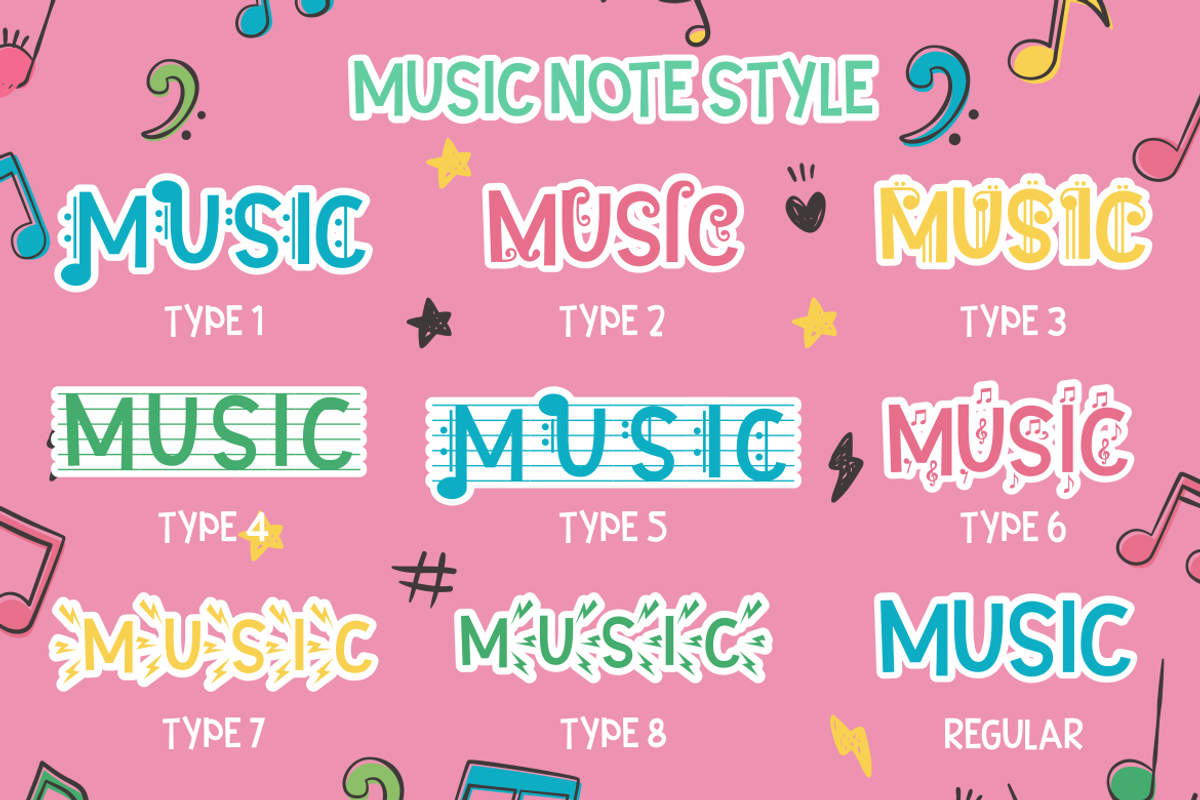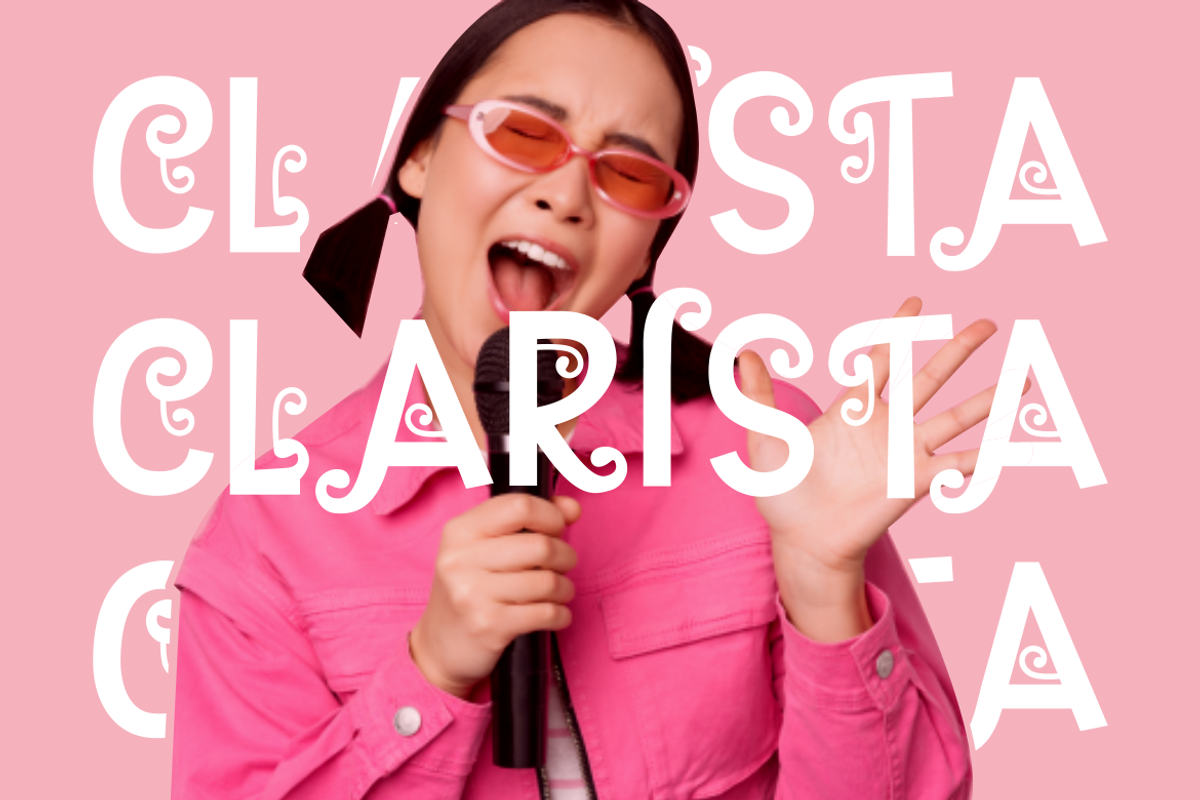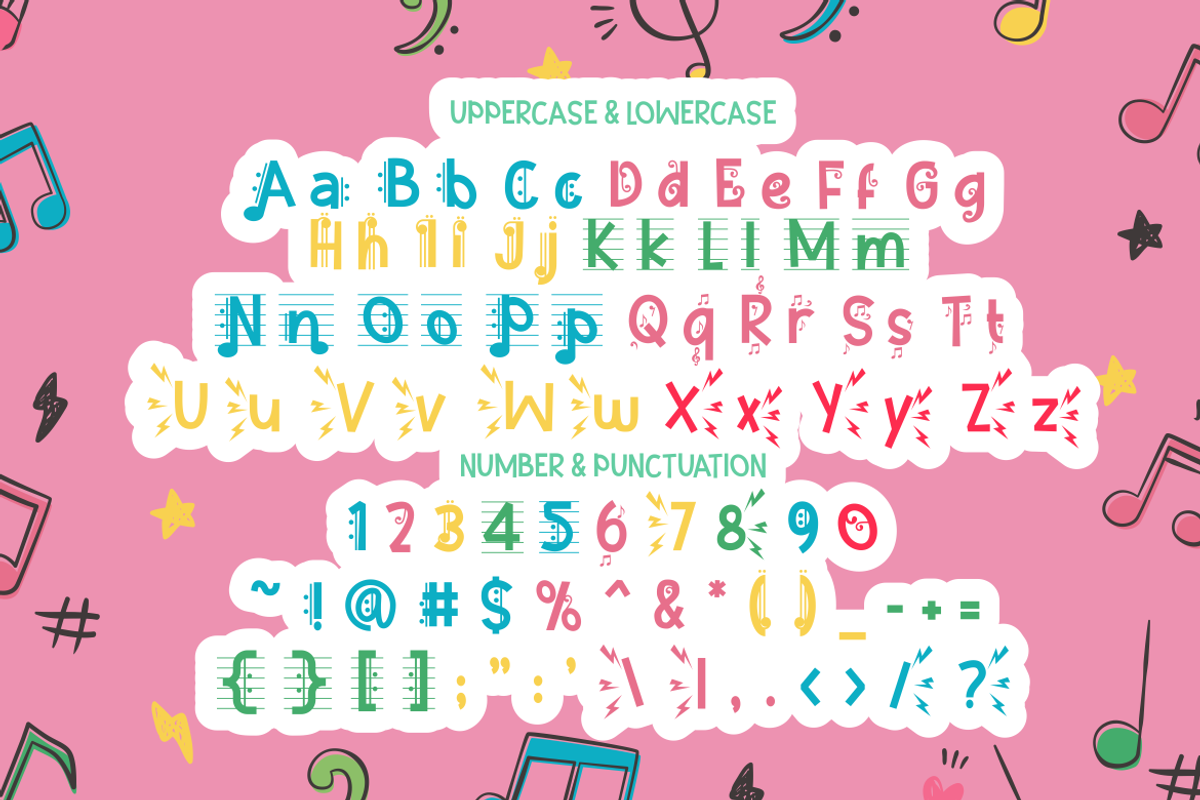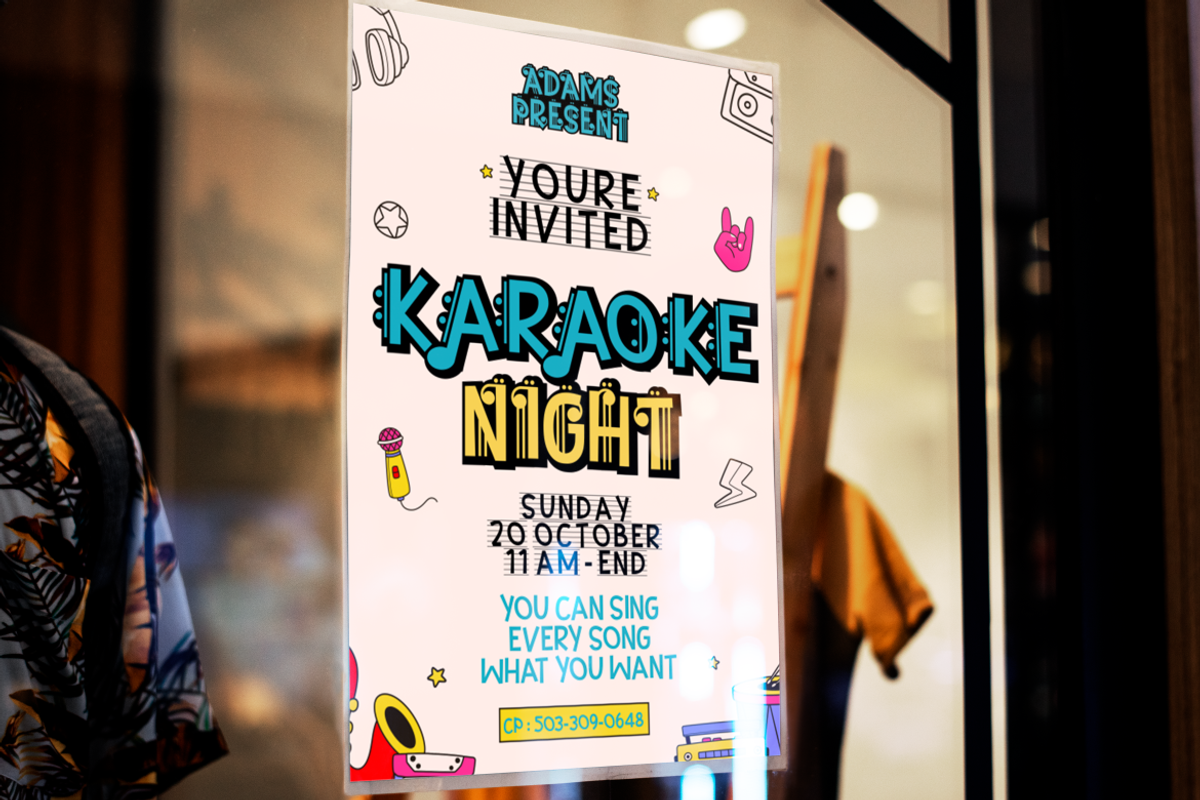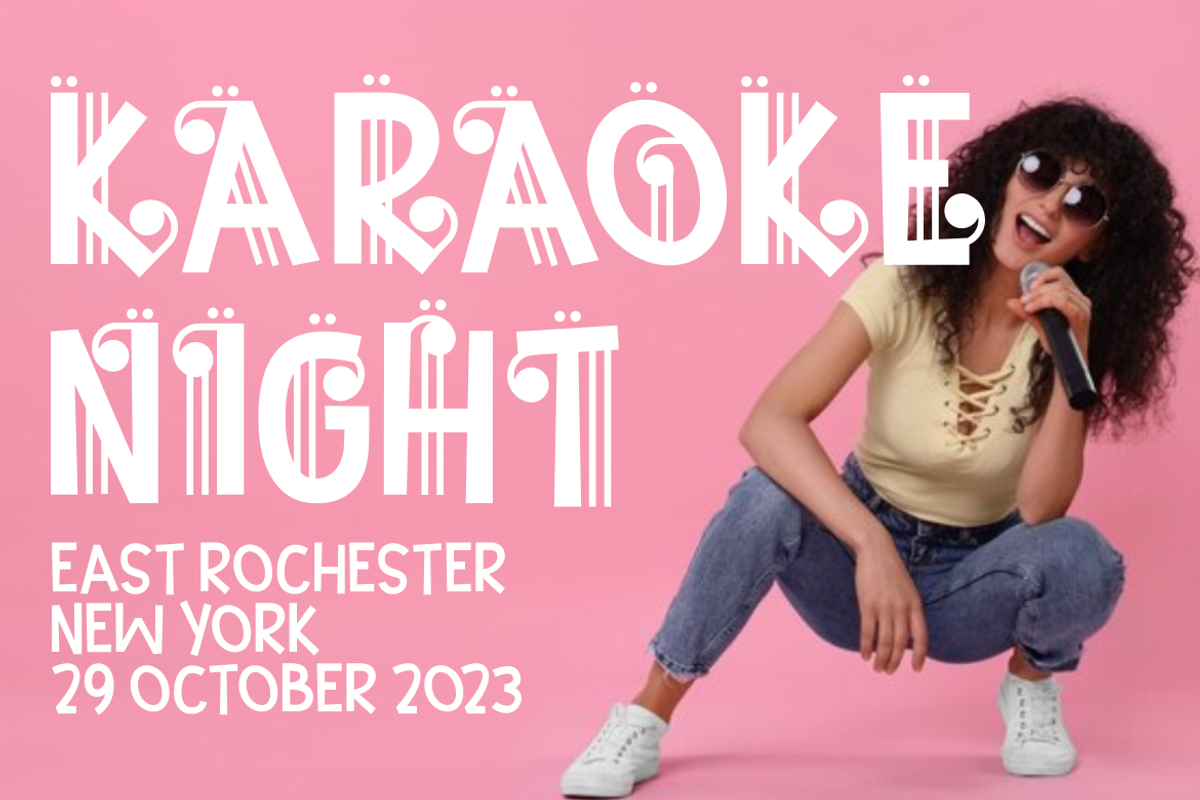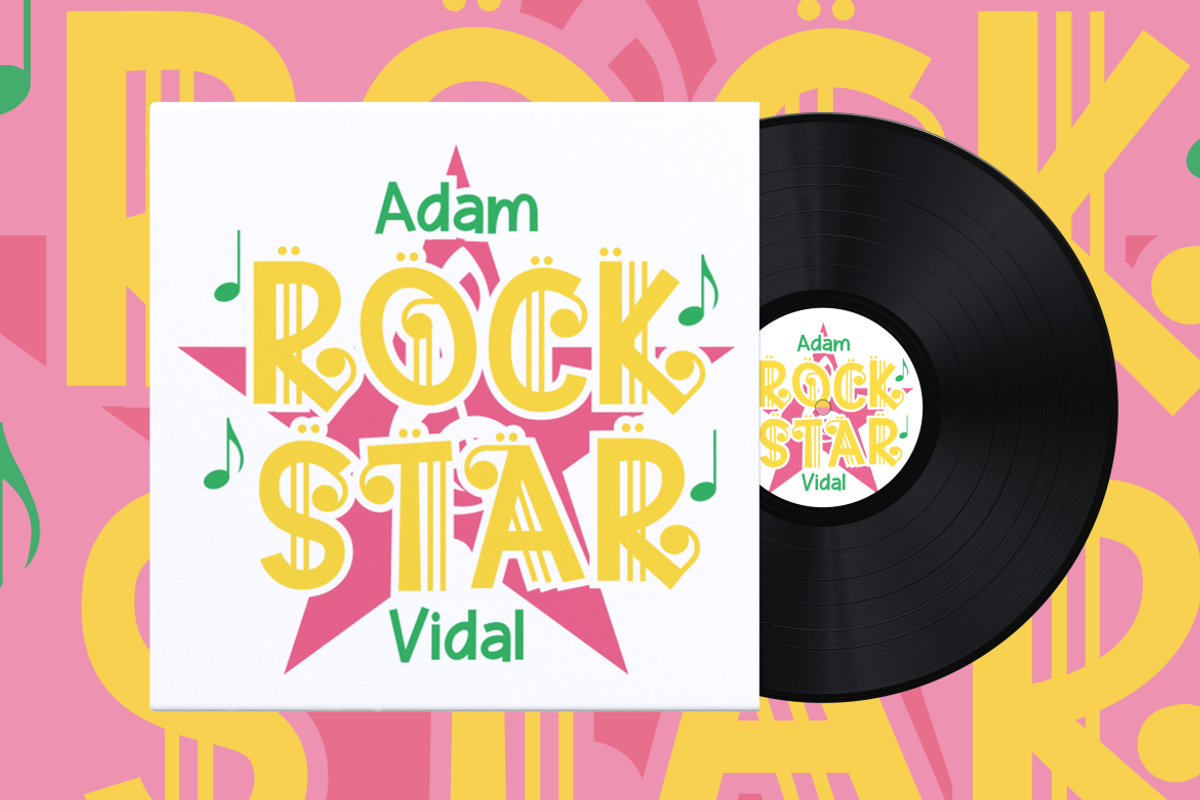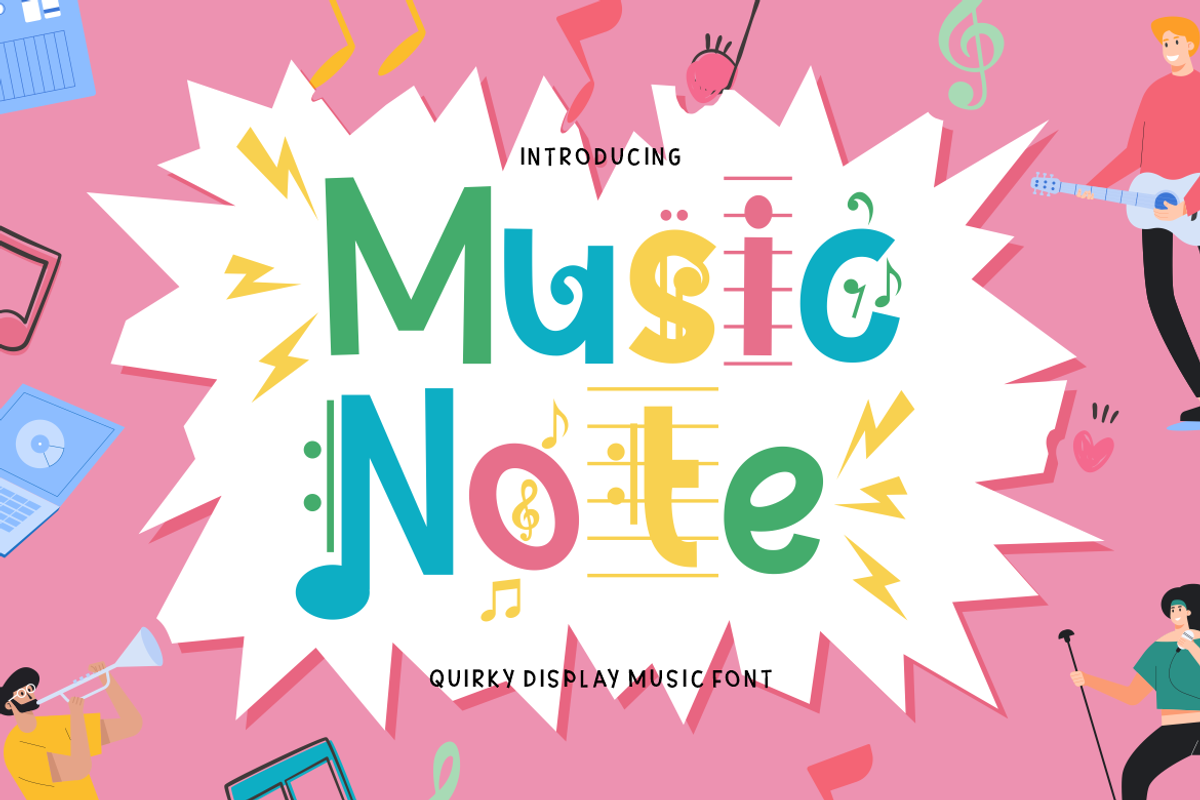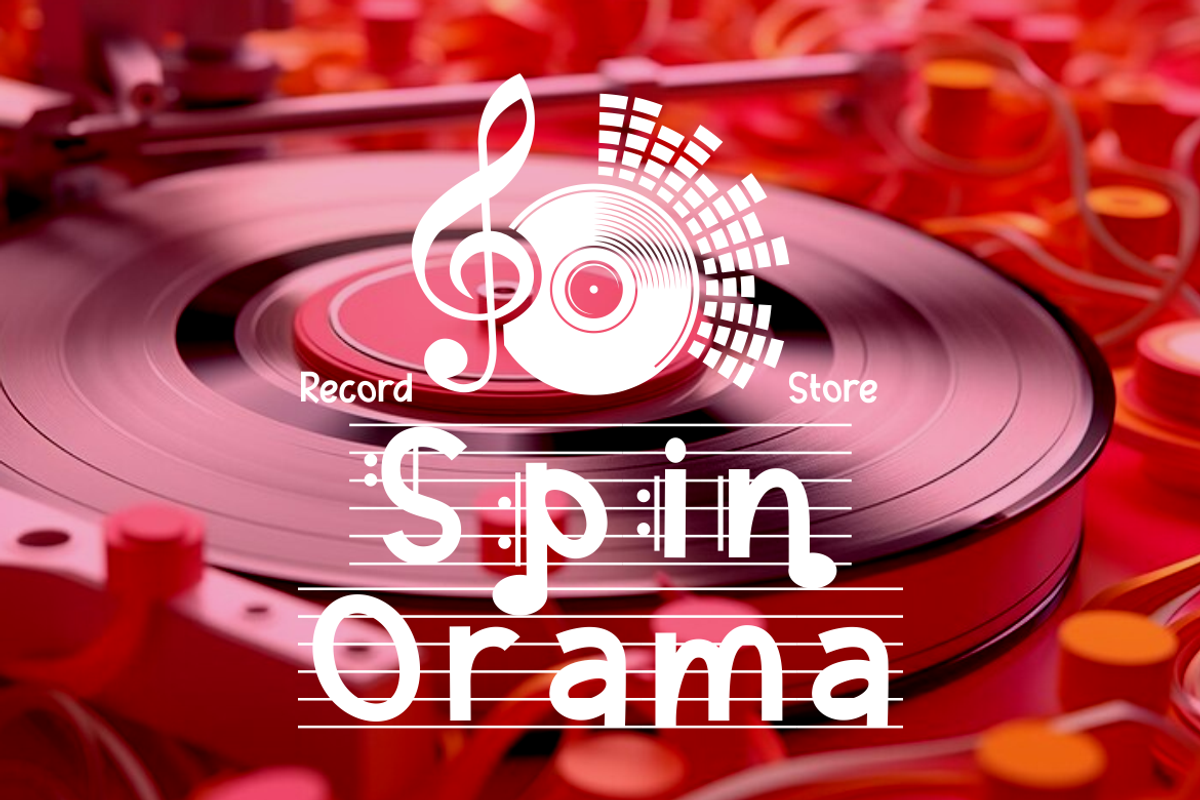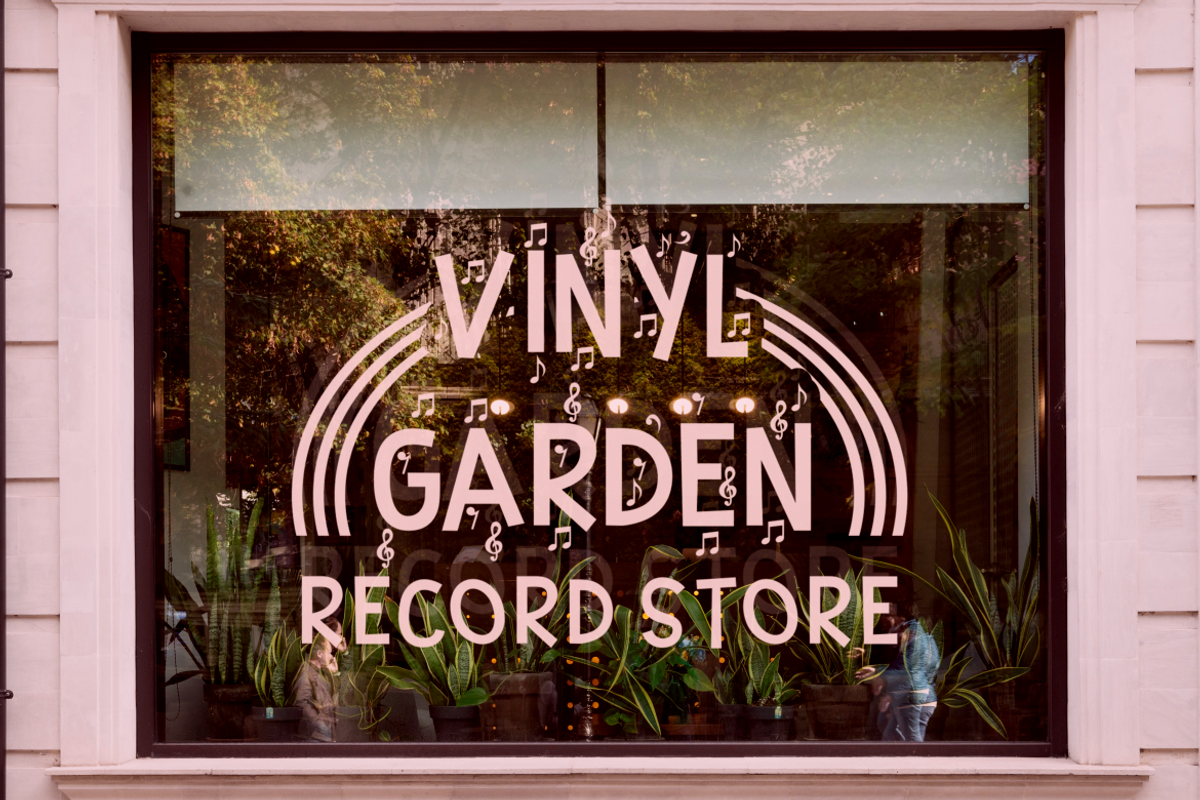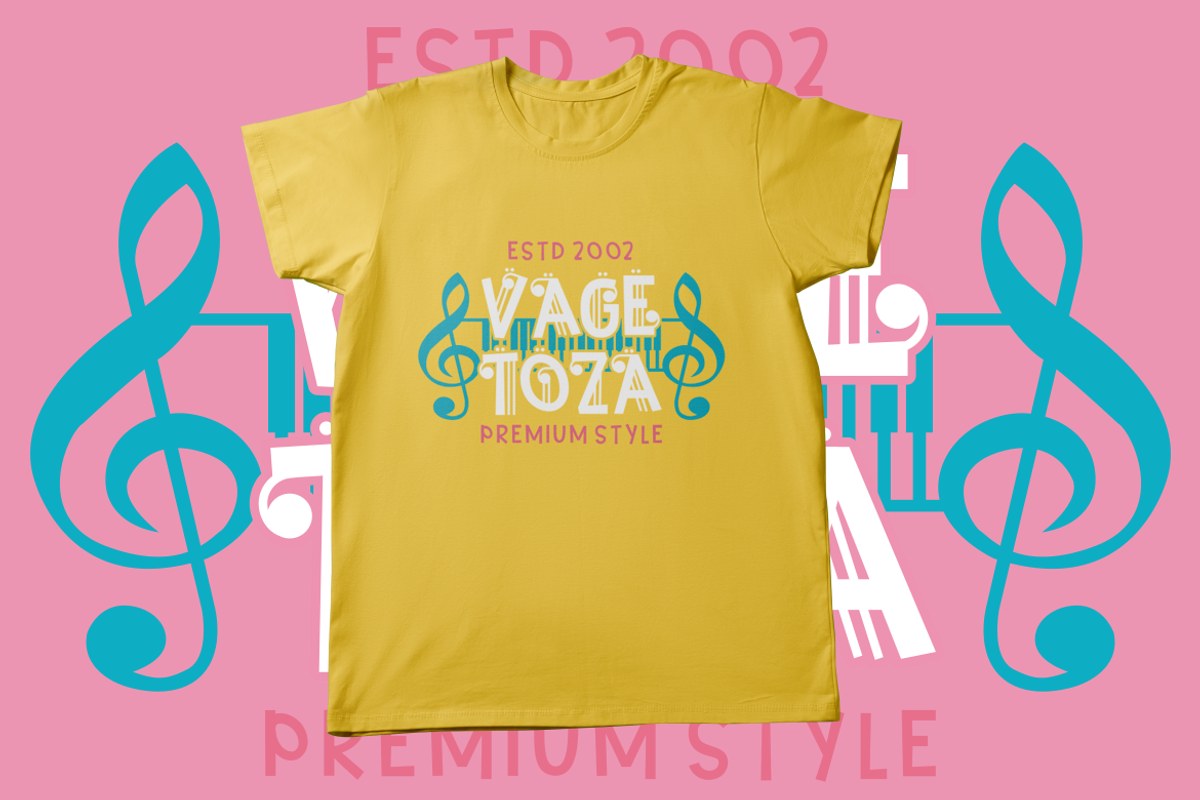
Music Note - Quirky Display Music
Music Note is a quirky display music font that captures the fun and whimsy of musical themes. This font is a perfect blend of musical notes, instruments, scales, rhythm, and tempo, designed with a childlike spirit and a crafter’s touch. With 9 unique variations to suit different musical styles, Music Note is as versatile as it is charming.
Whether you are creating a logo, branding, a children’s theme, a crafting project, an invitation card, a packaging design, a poster, a title, a business identity, a greeting card, a sticker, a children’s book, or a magazine layout, Music Note will add a touch of musical magic to your design. Each letter dances with rhythm and melody; every stroke resonates with the harmonious tunes of joy.